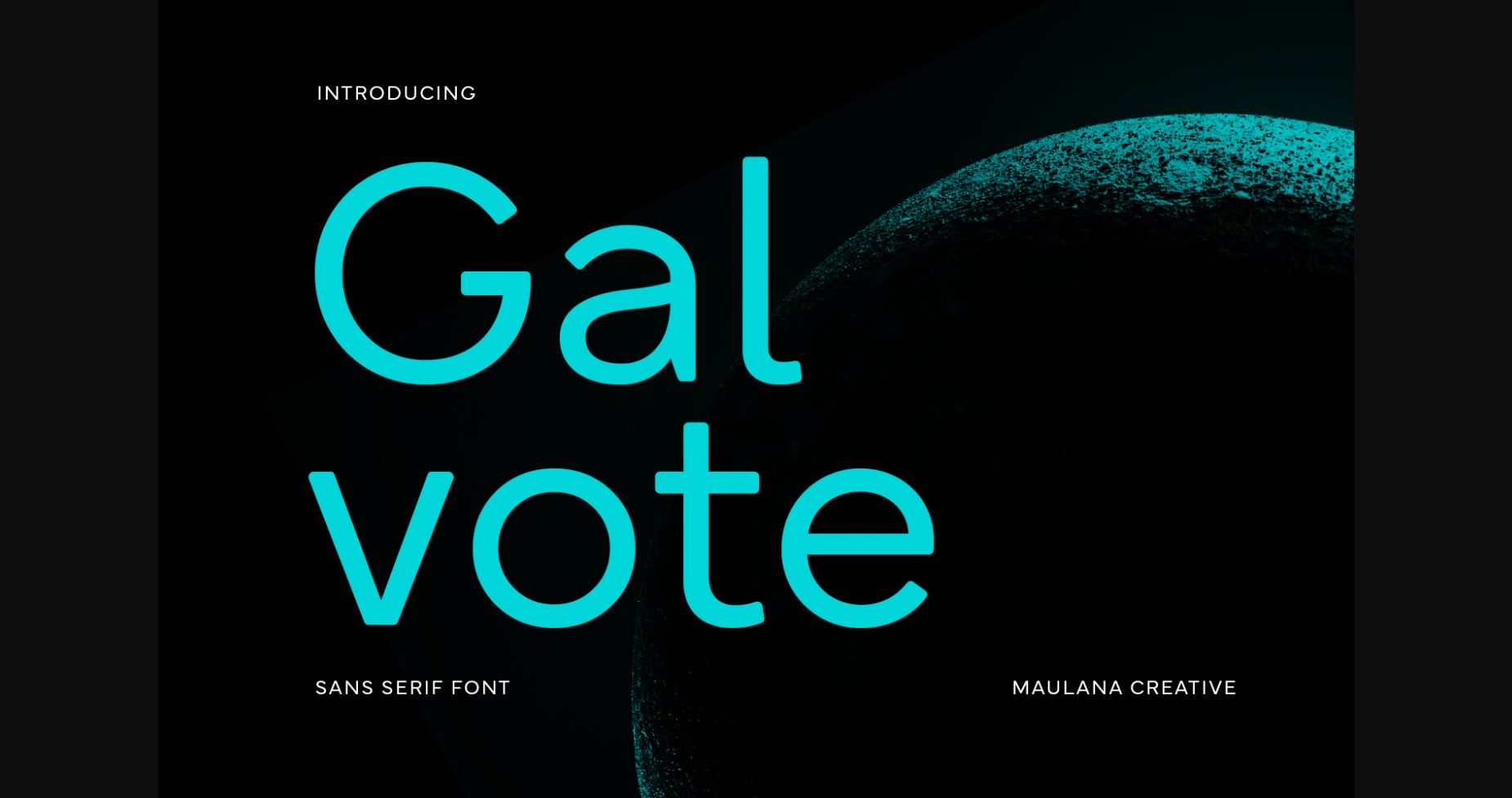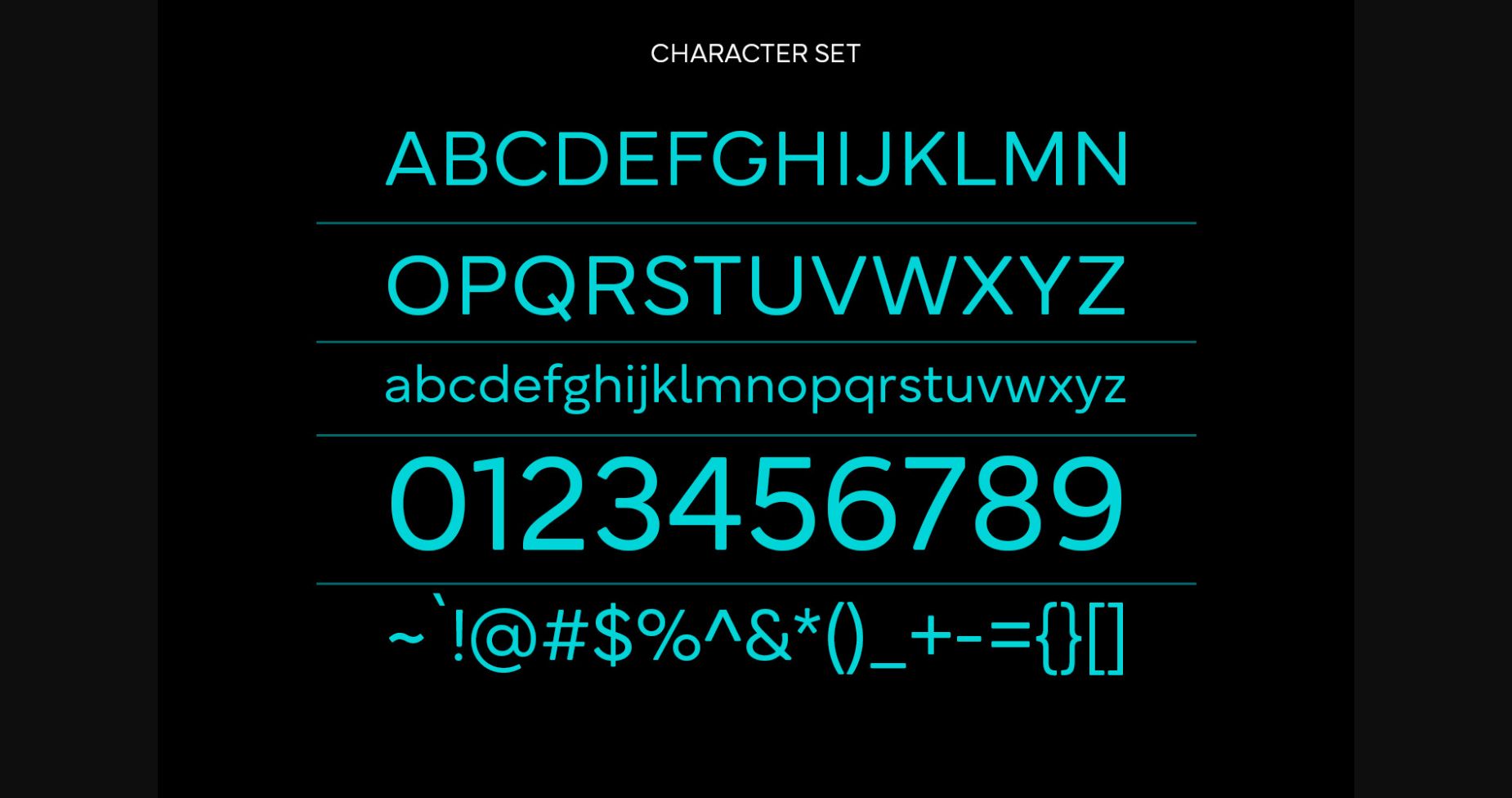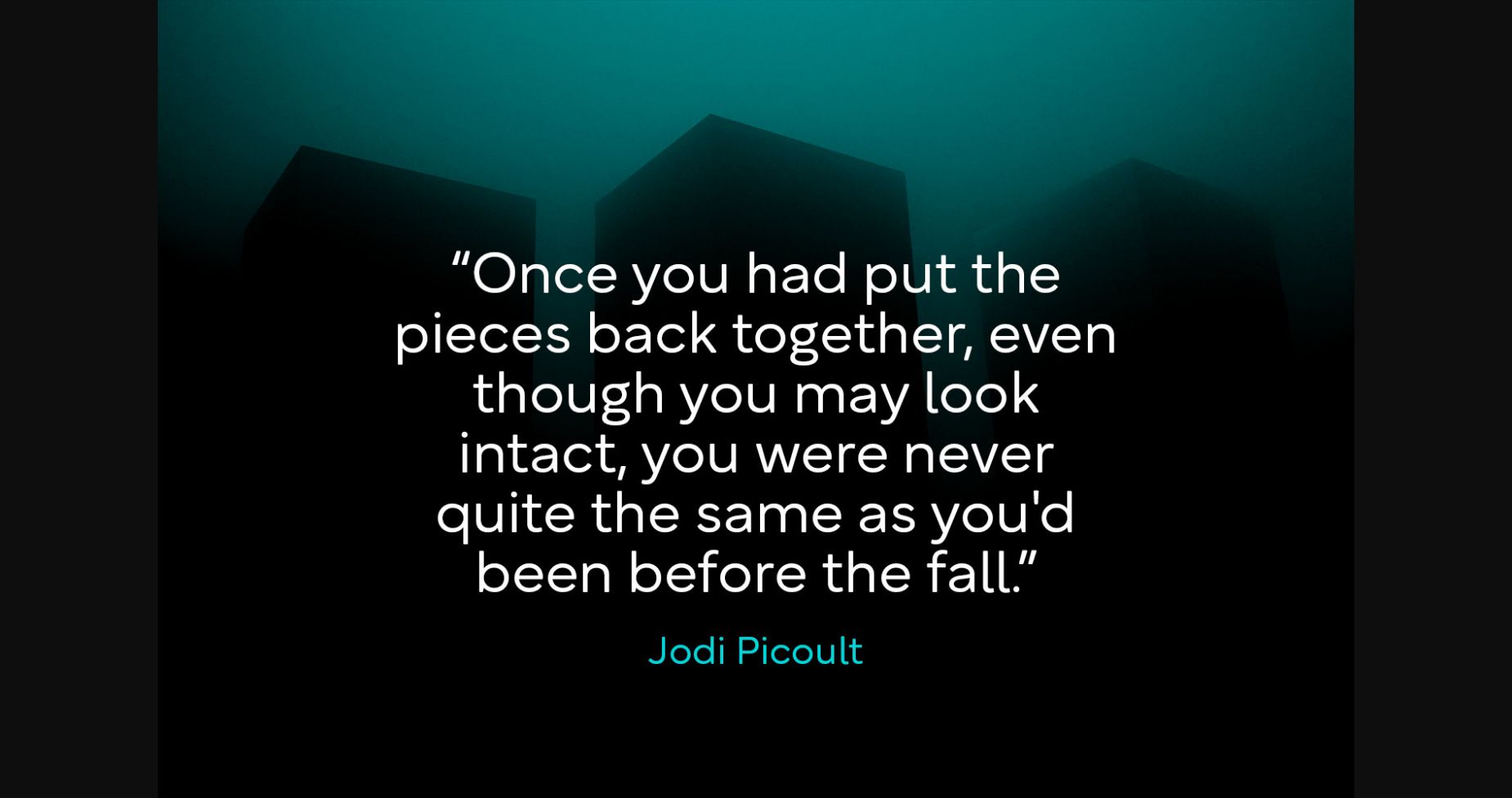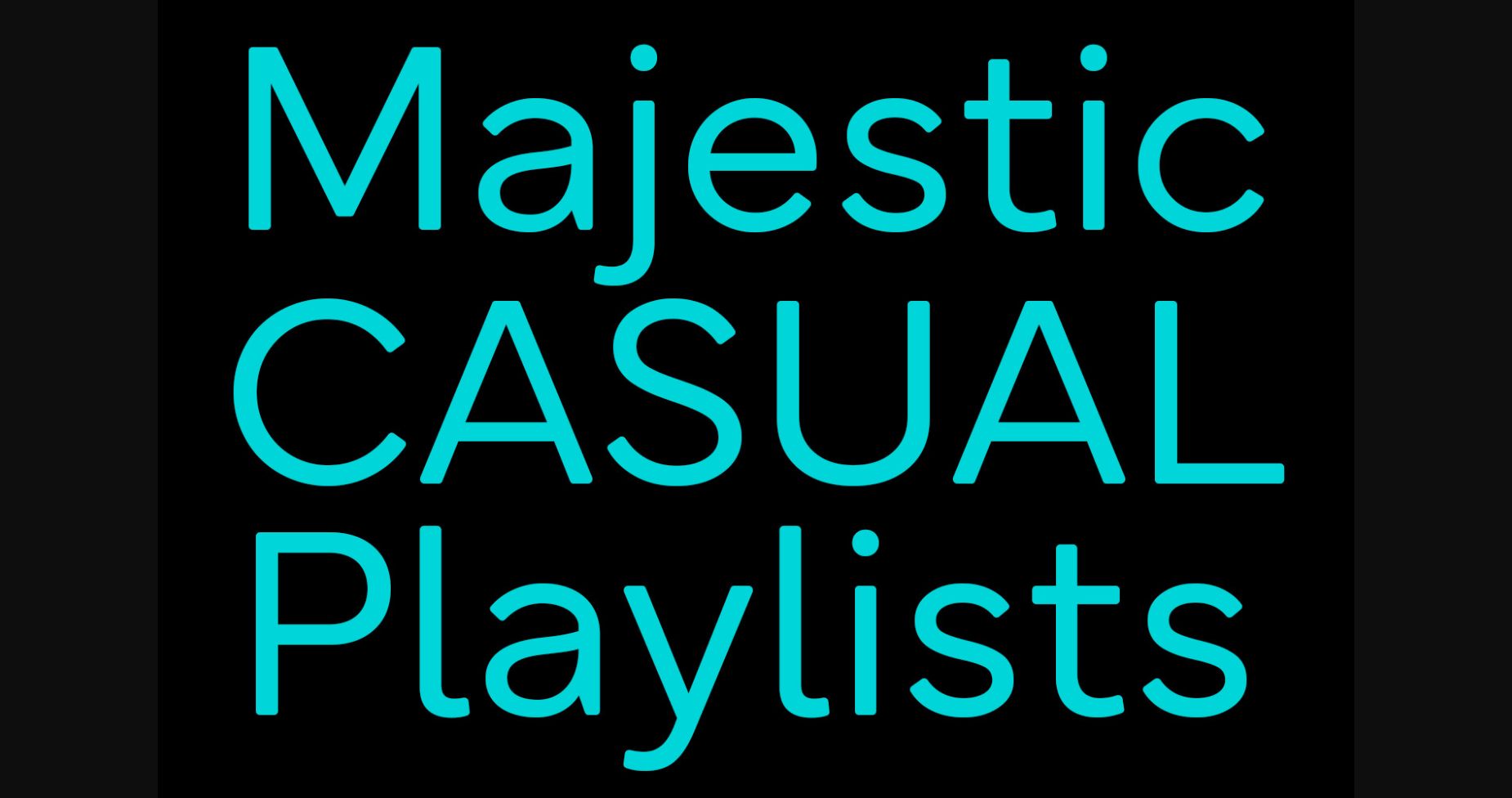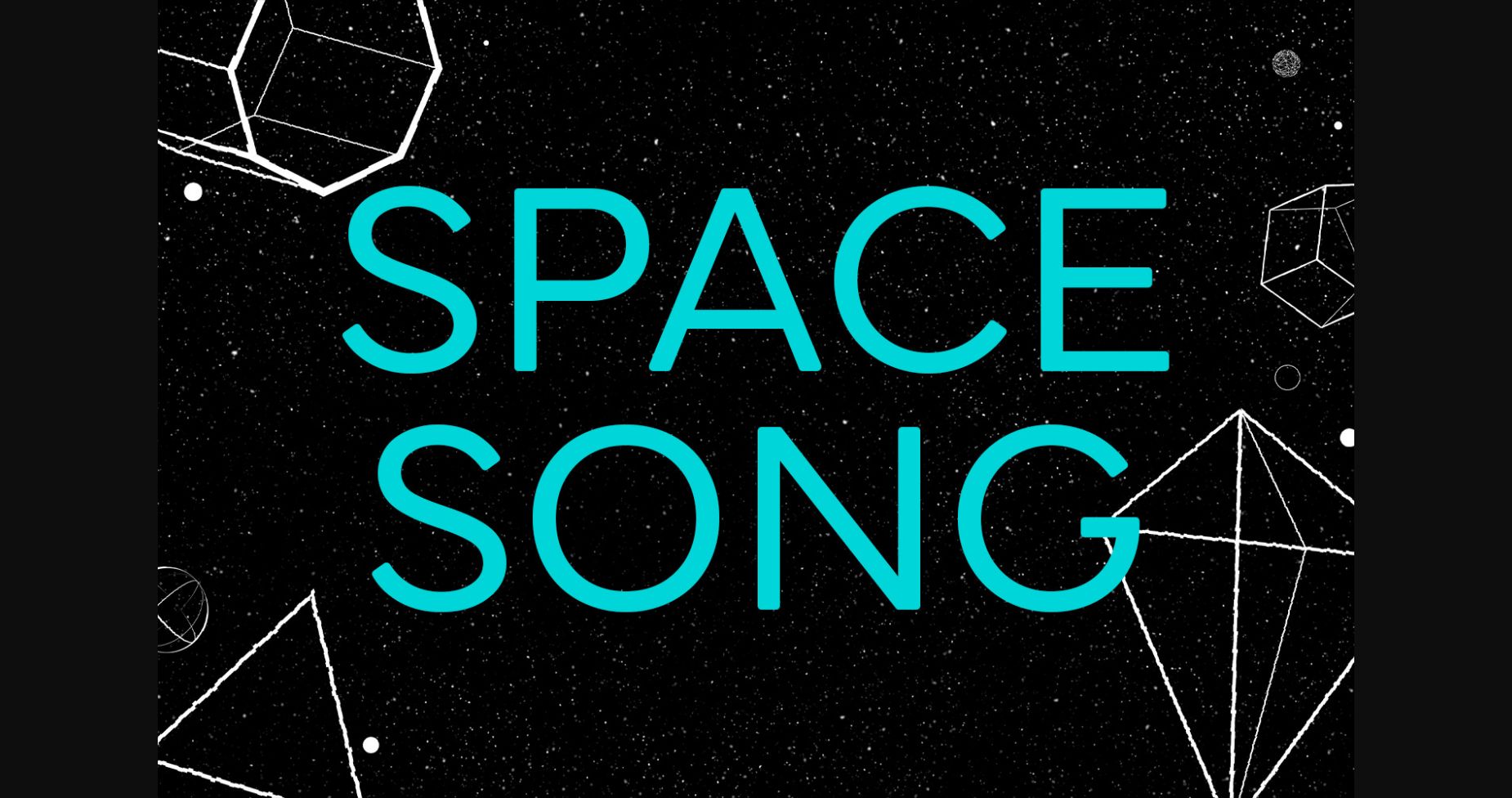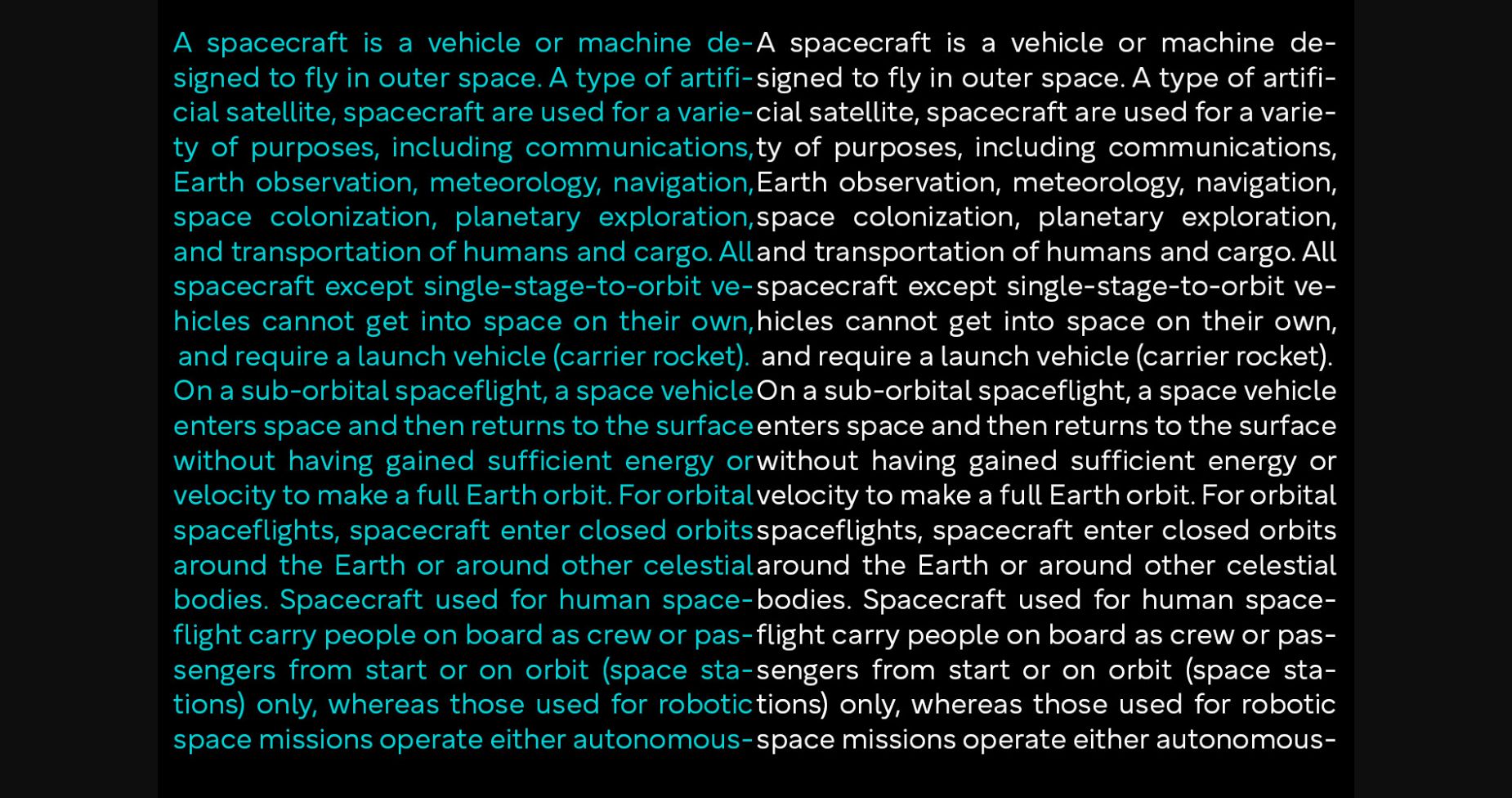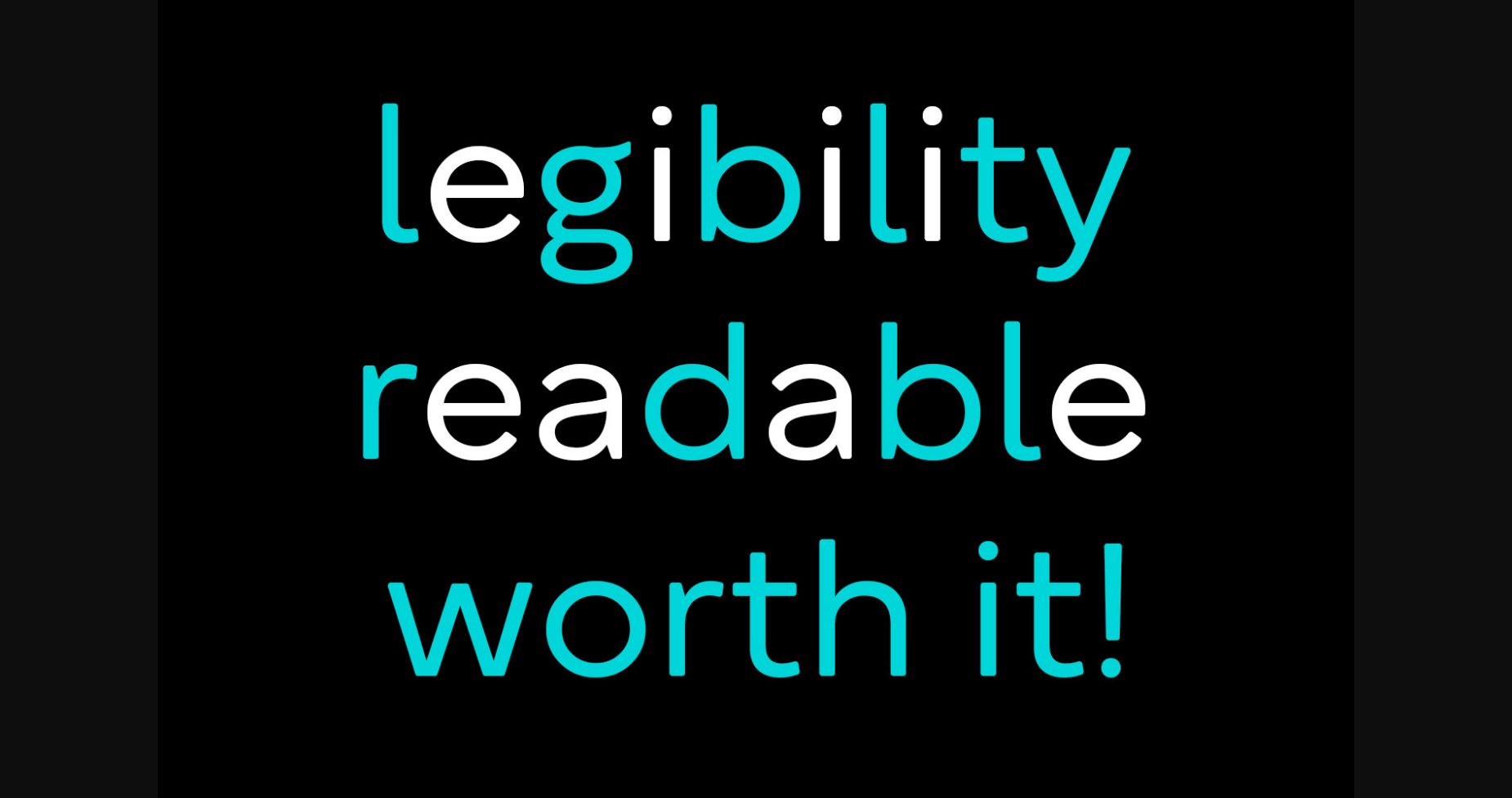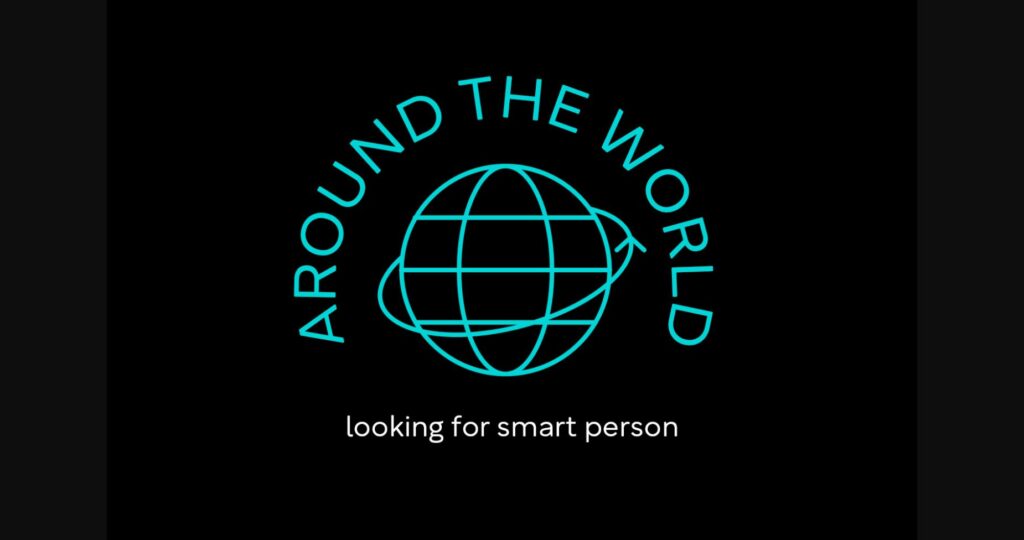
Galvote Font
About Galvote Font
Galvote is a modern and minimalist display font, designed to give your projects a futuristic edge. With sharp lines and sleek shapes, each letter exudes a high-tech vibe that’s perfect for logos, banners, and other design elements that require a modern, cutting-edge look. This font is sure to make a bold statement and capture your audience’s attention.